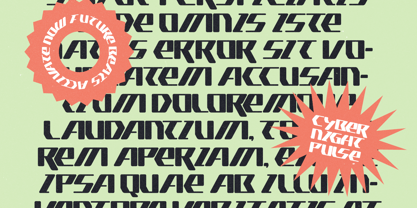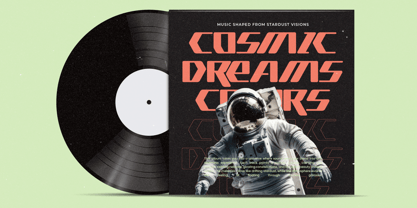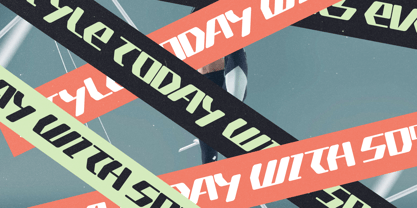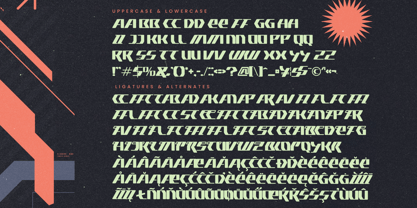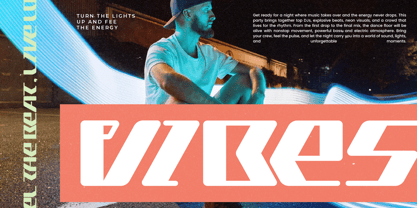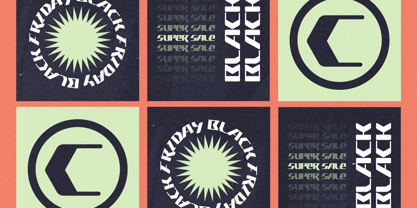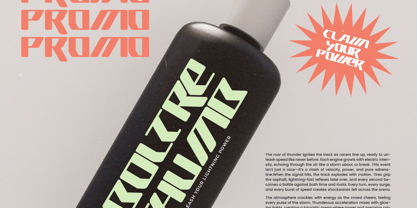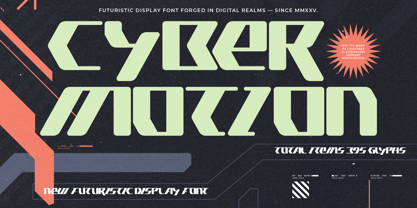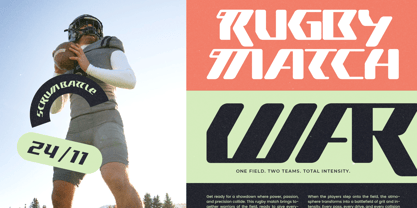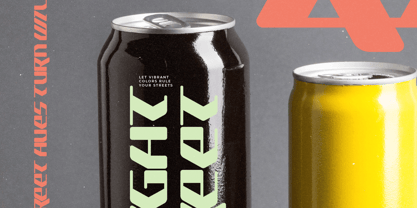
Cyber Motion
The Cyber Motion Font Family was designed by Heru Utama Putra and published by Timelesstype Studio. Cyber Motion contains 2 styles and family package options.
Cyber Motion - New Futuristic Display Font , from Timelesstype , Suitable for any projects such as: logos, branding projects, homeware designs, product packaging, mugs, quotes, posters, shopping bags, t-shirts, book covers, name card, invitation cards, greeting cards, label, photography, watermark, special events, and all your other luxury and beautiful projects that need a Luxury Serif taste.
Cyber Motion